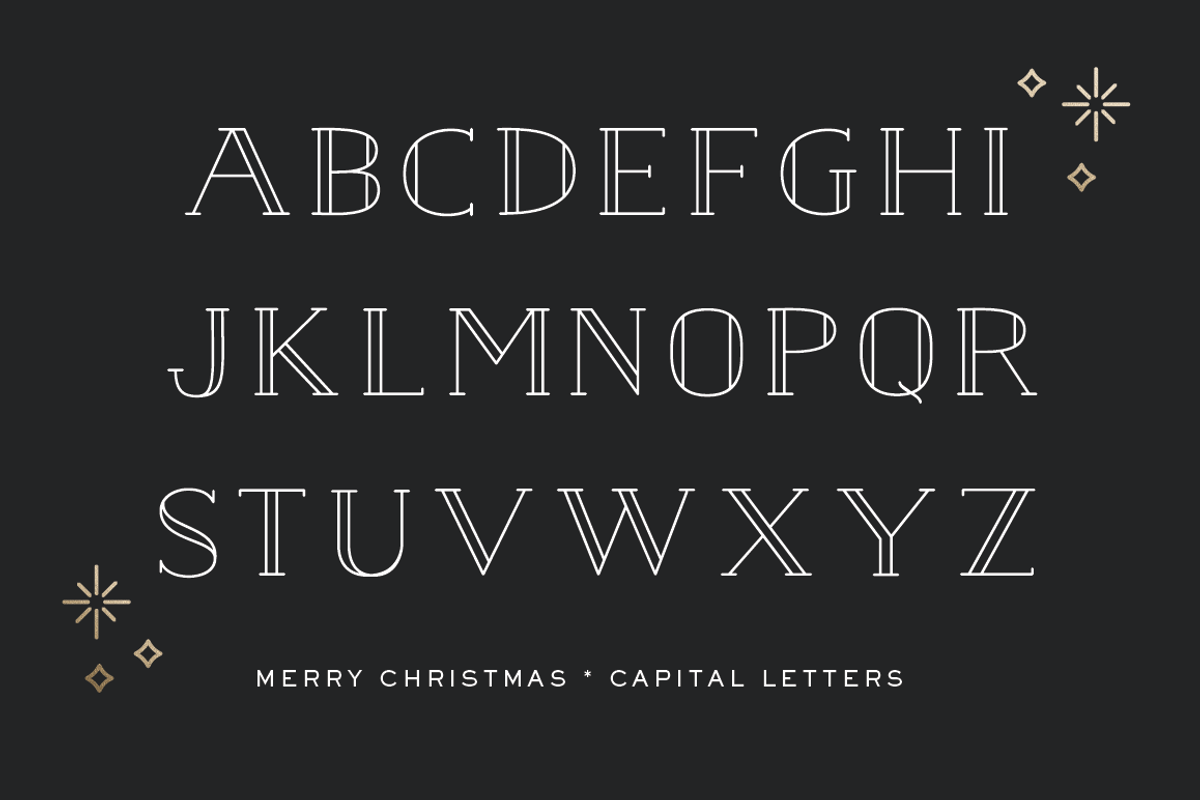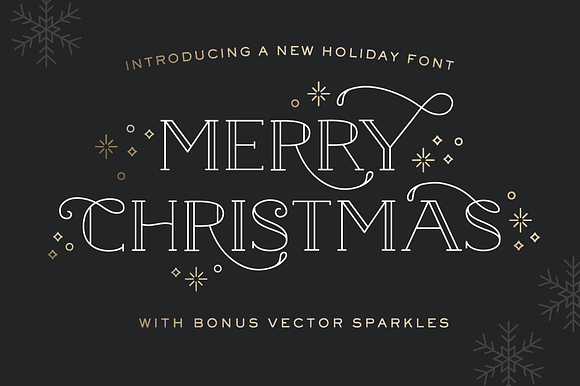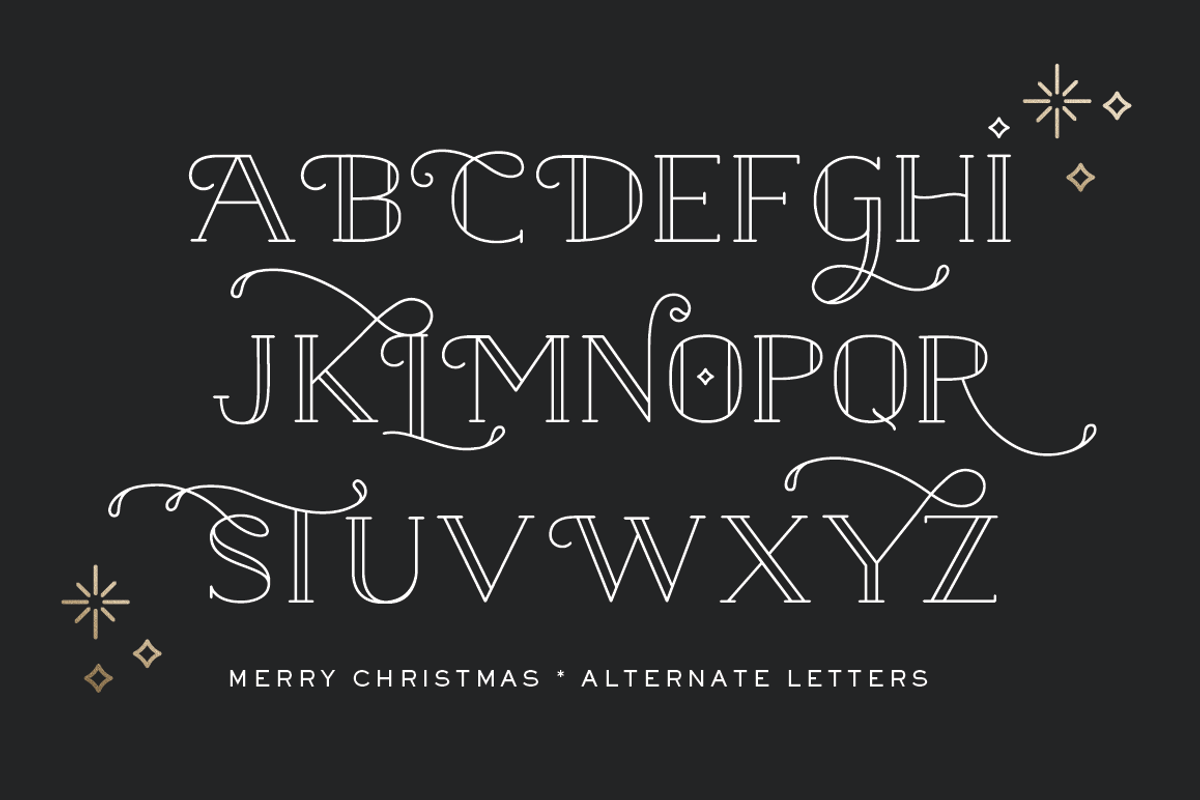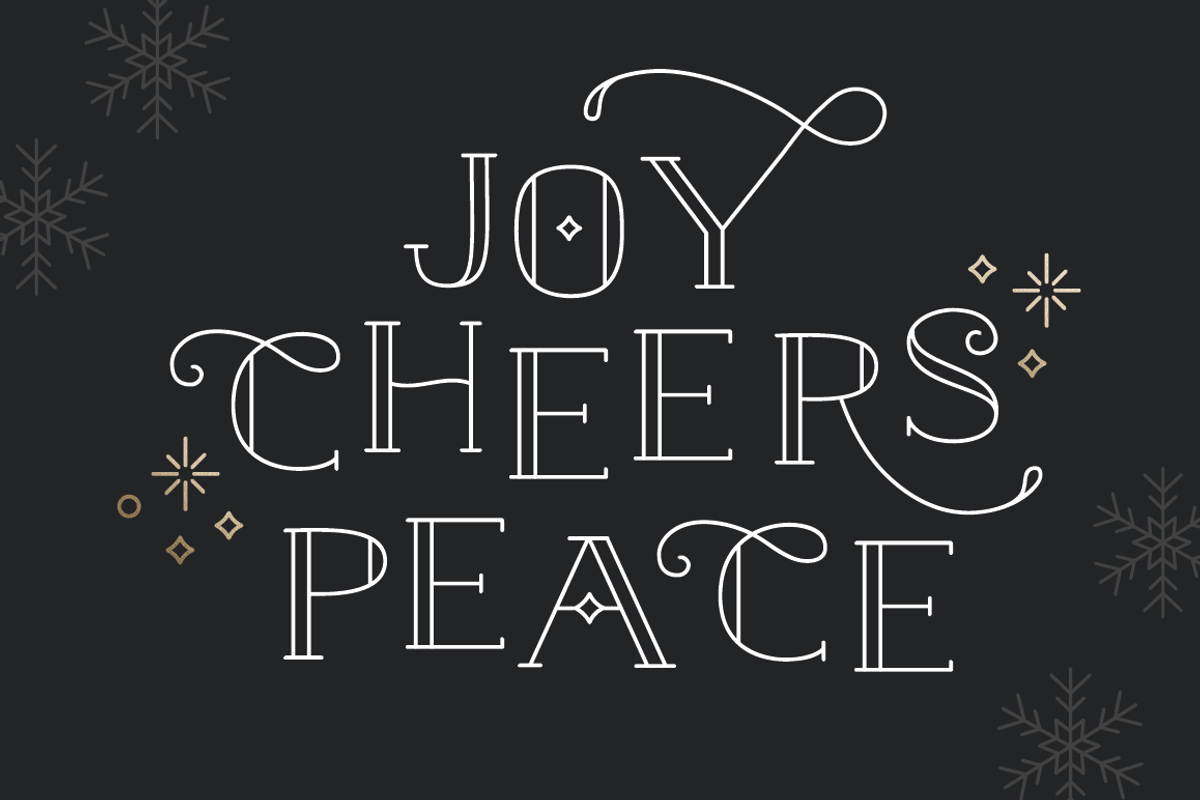
Merry Christmas Font - with sparkles
Stay classy, Christmas. This typeface brings sparkle and shine to your holiday layouts.
Merry Christmas is suitable for Christmas cards, holiday invitations, branding, stationery, blog design, custom art, custom stamps, custom embossers, or any design purpose.